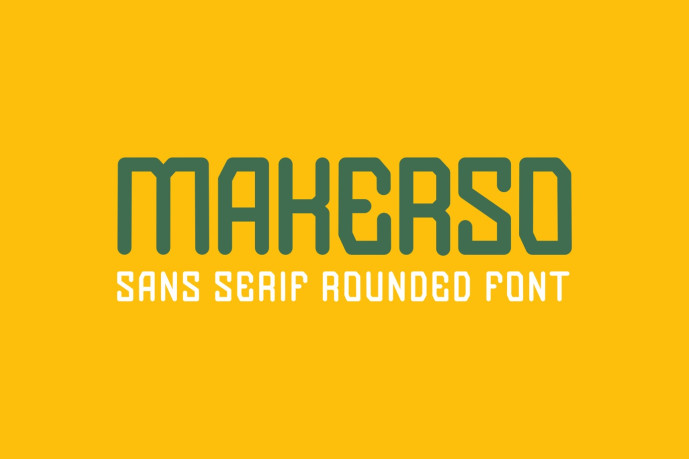
Makerso – Sans Serif Rounded Font
Designer: ryomiscie
Introducing our new product Makerso – Sans Serif Rounded Font
Makerso – Sans Serif Rounded Fontis a bold and authentic display font. The font is suitable for any branding project like logo, esport, and many more. outstanding in a wide range of contexts.